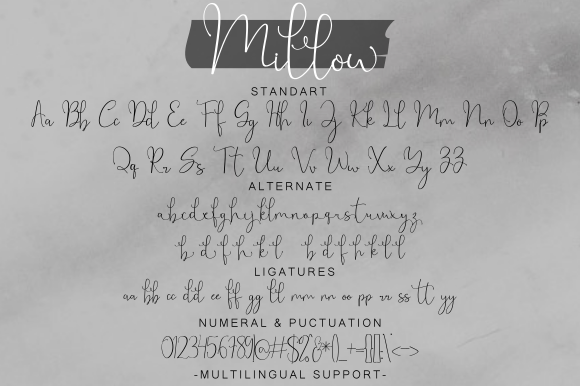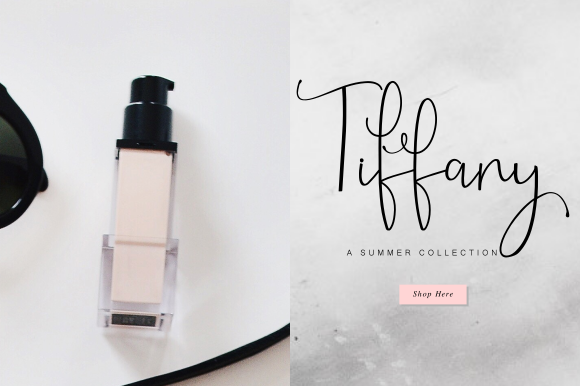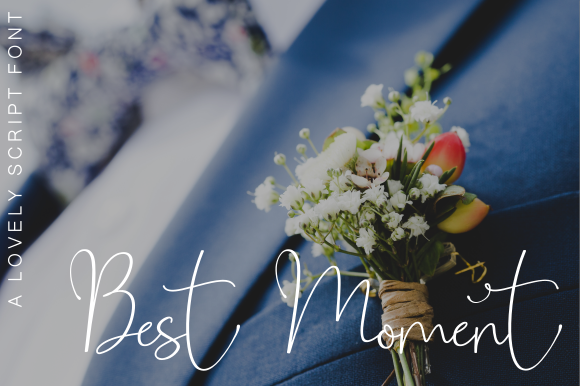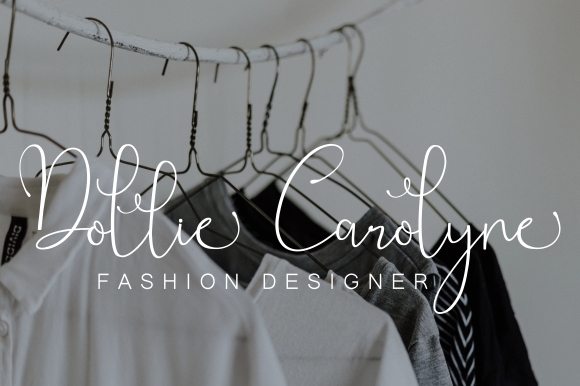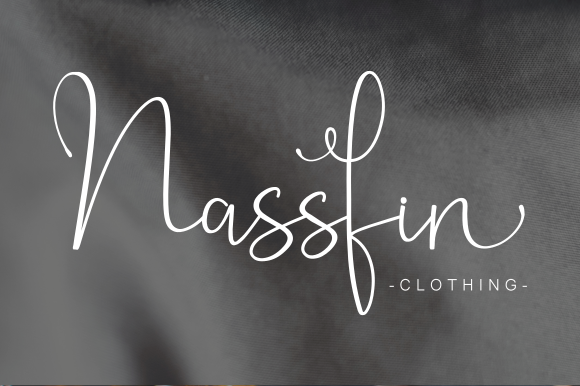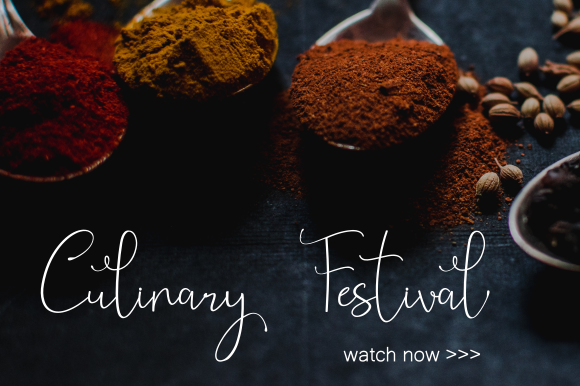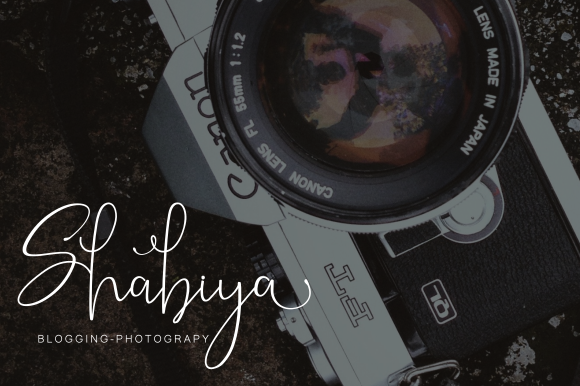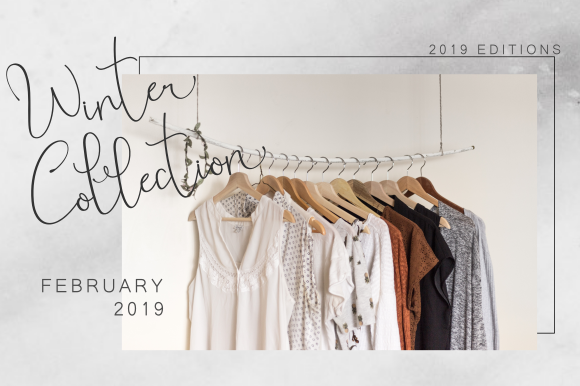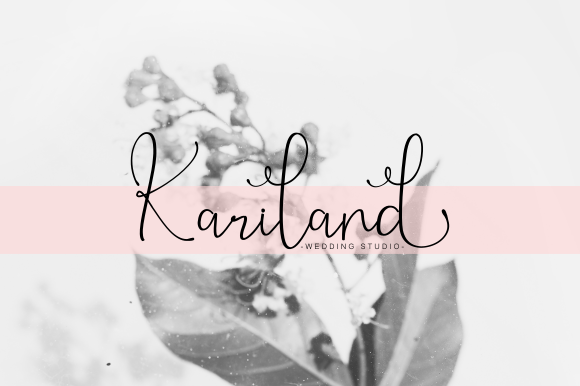
Millow Font
About Millow Font
Millow is a light and beautiful handwritten font with lots of personality. Get inspired by its it delightful swashes and add an authentic touch to any creative project!